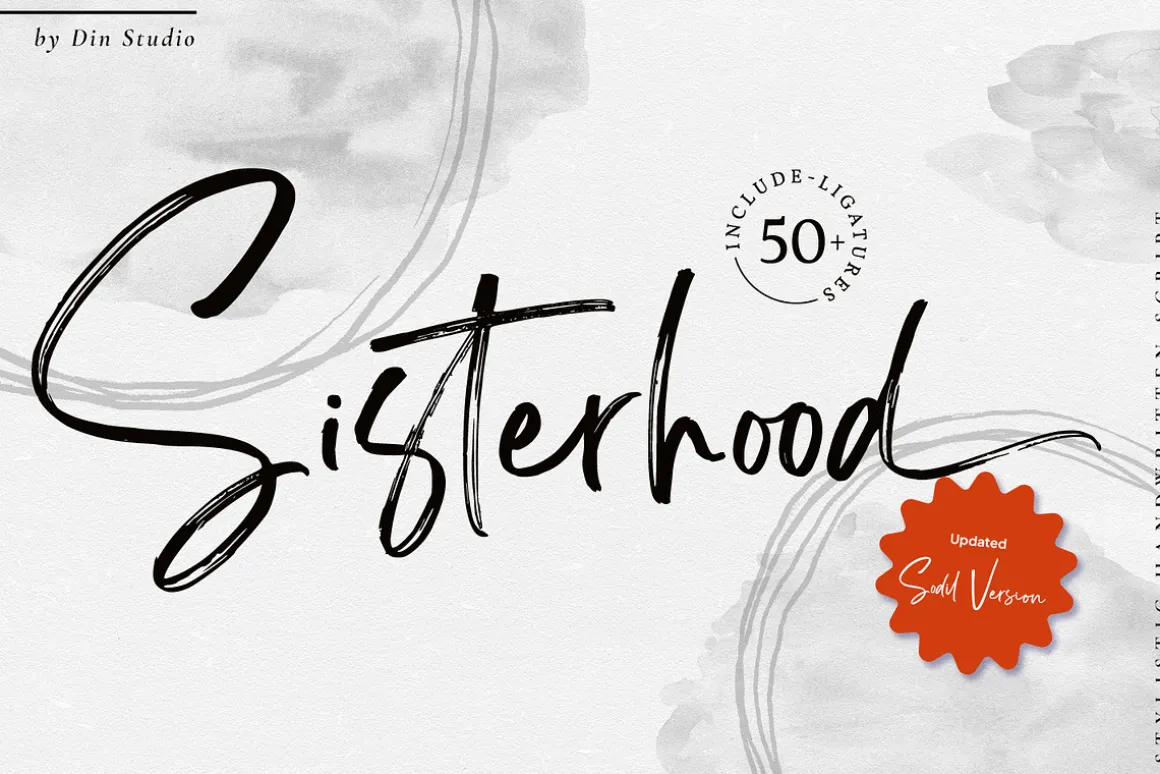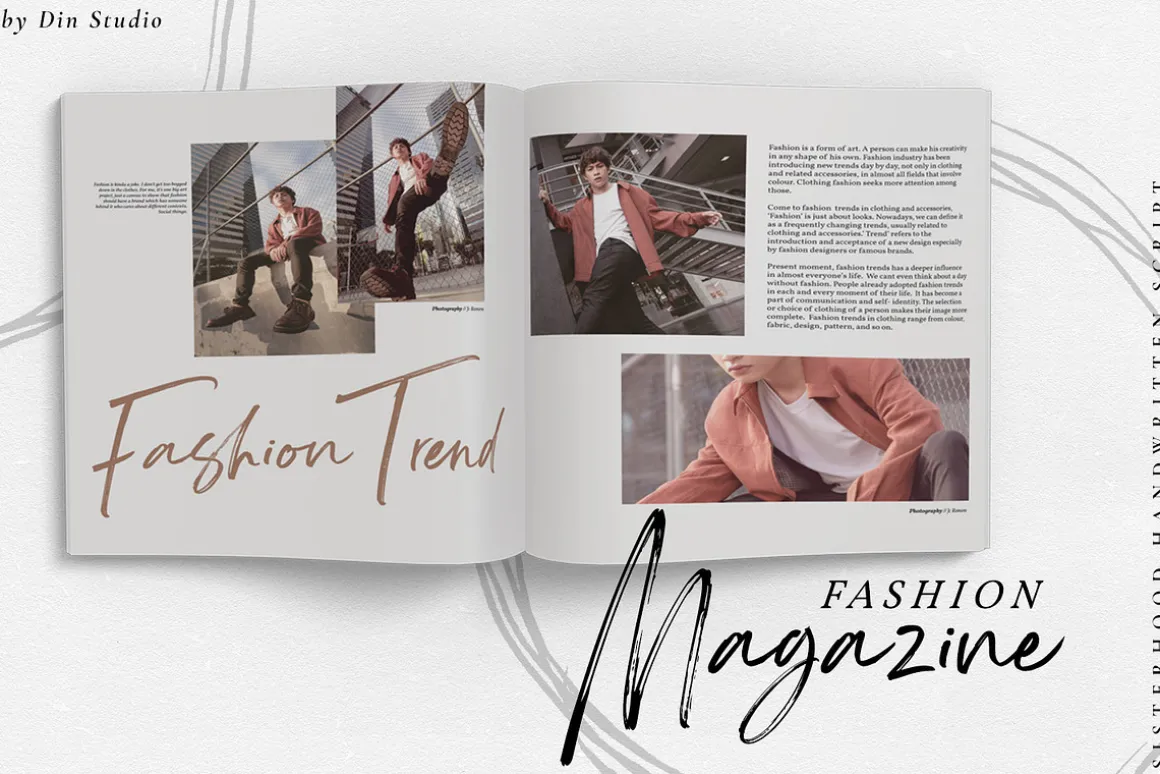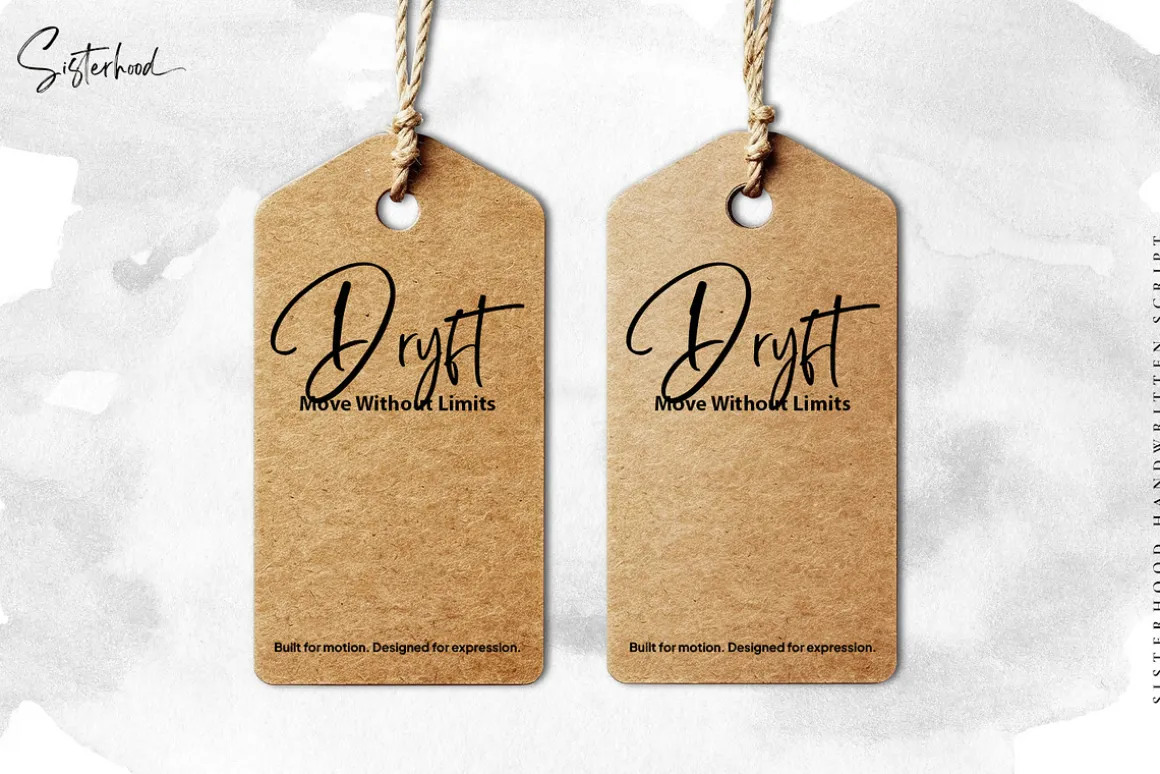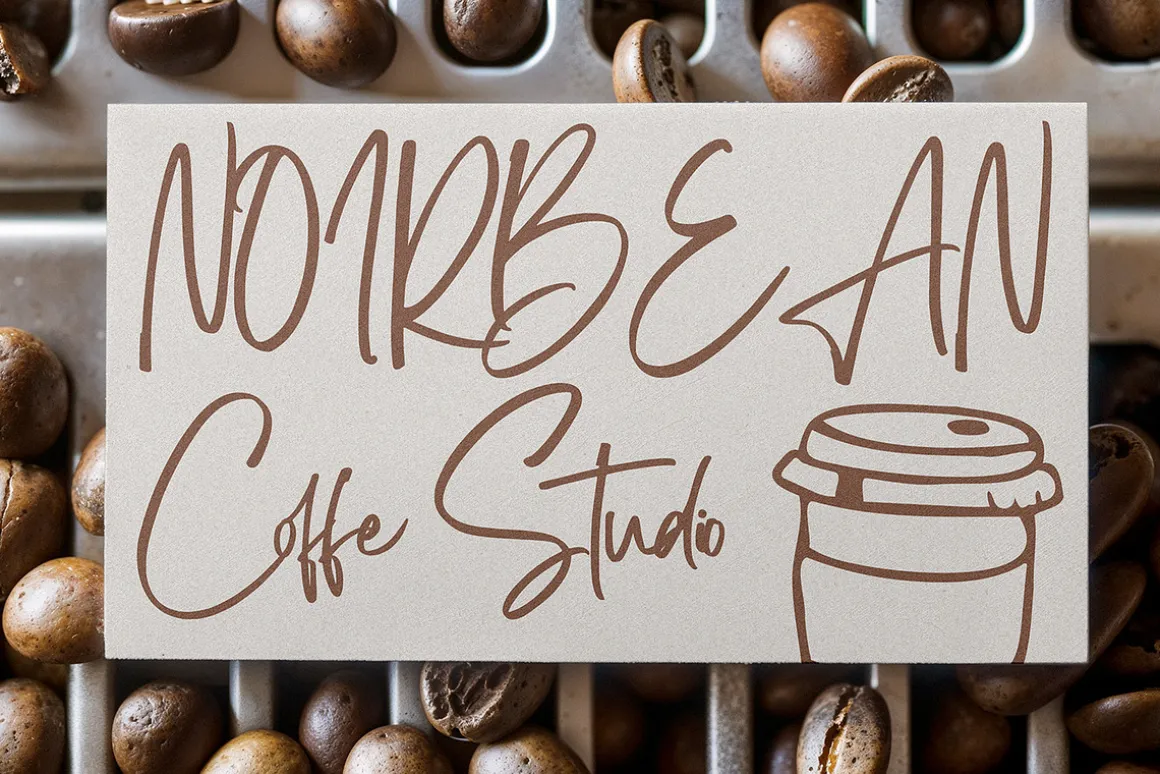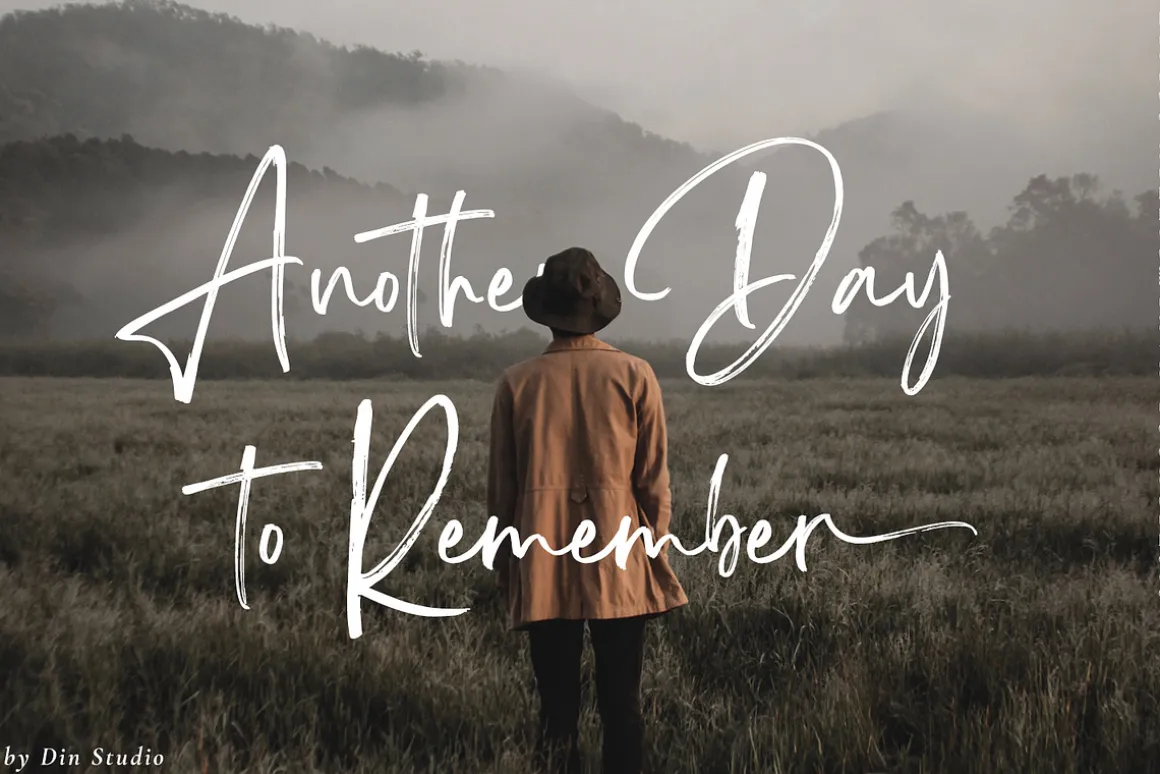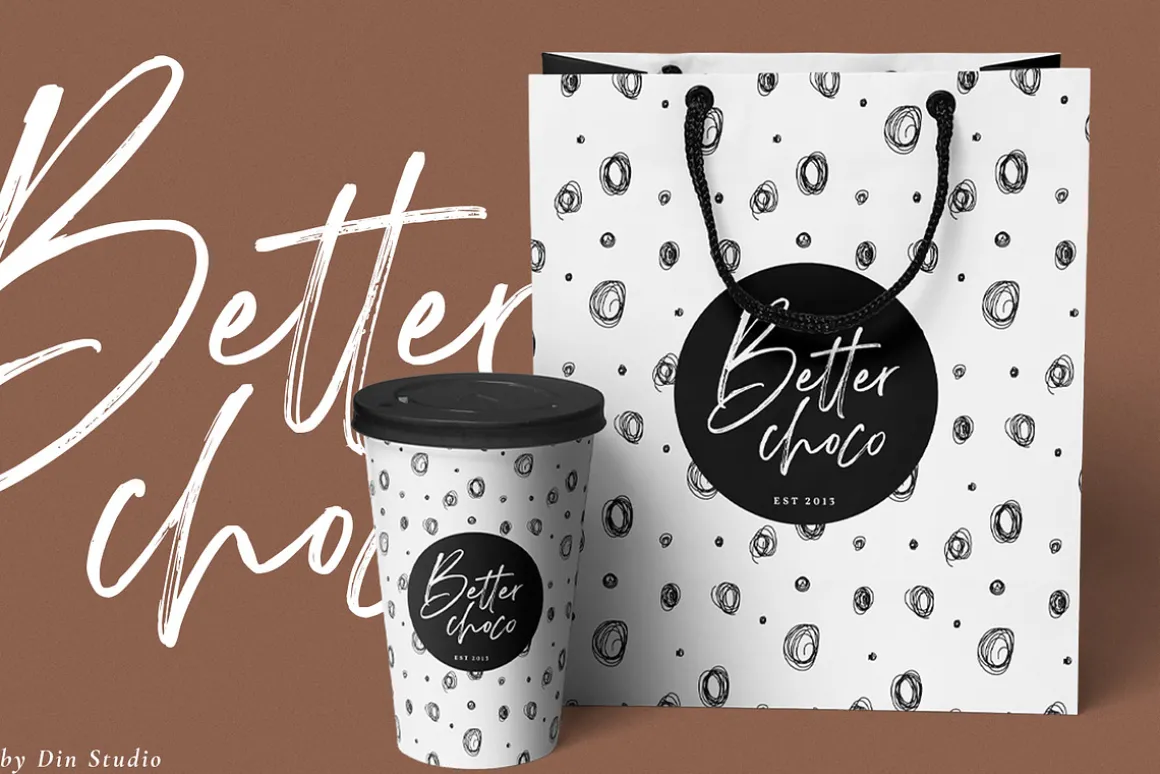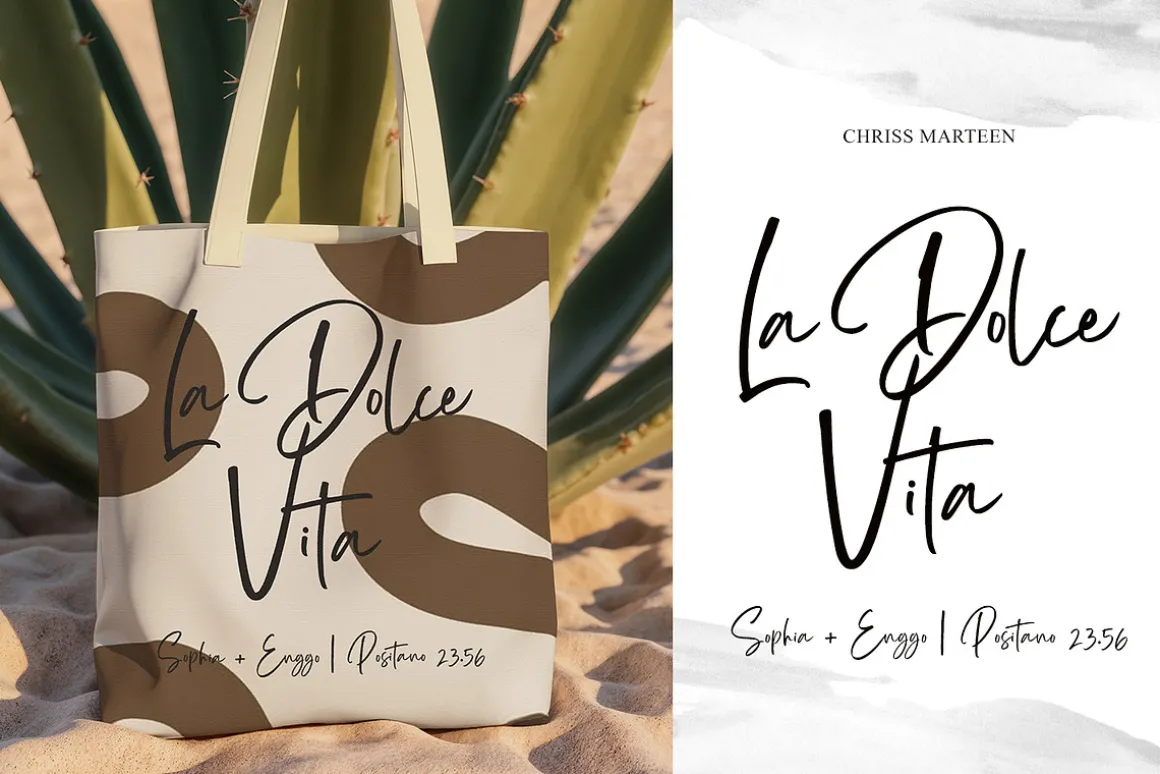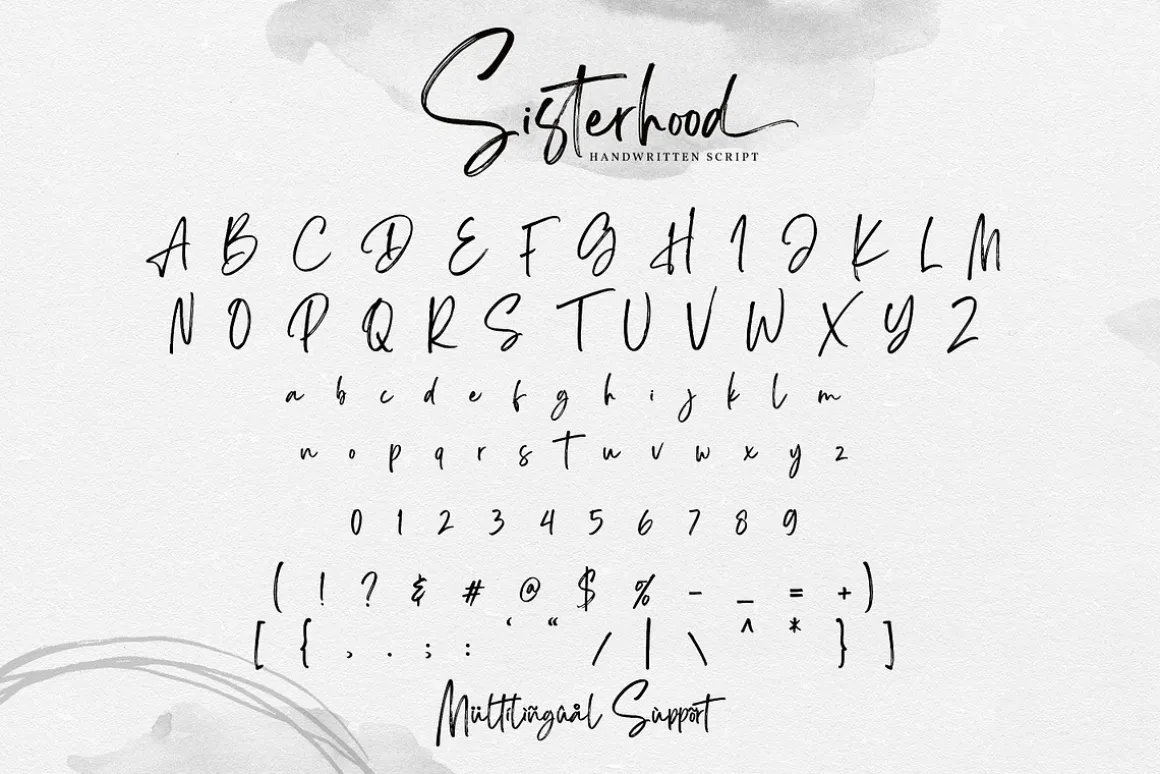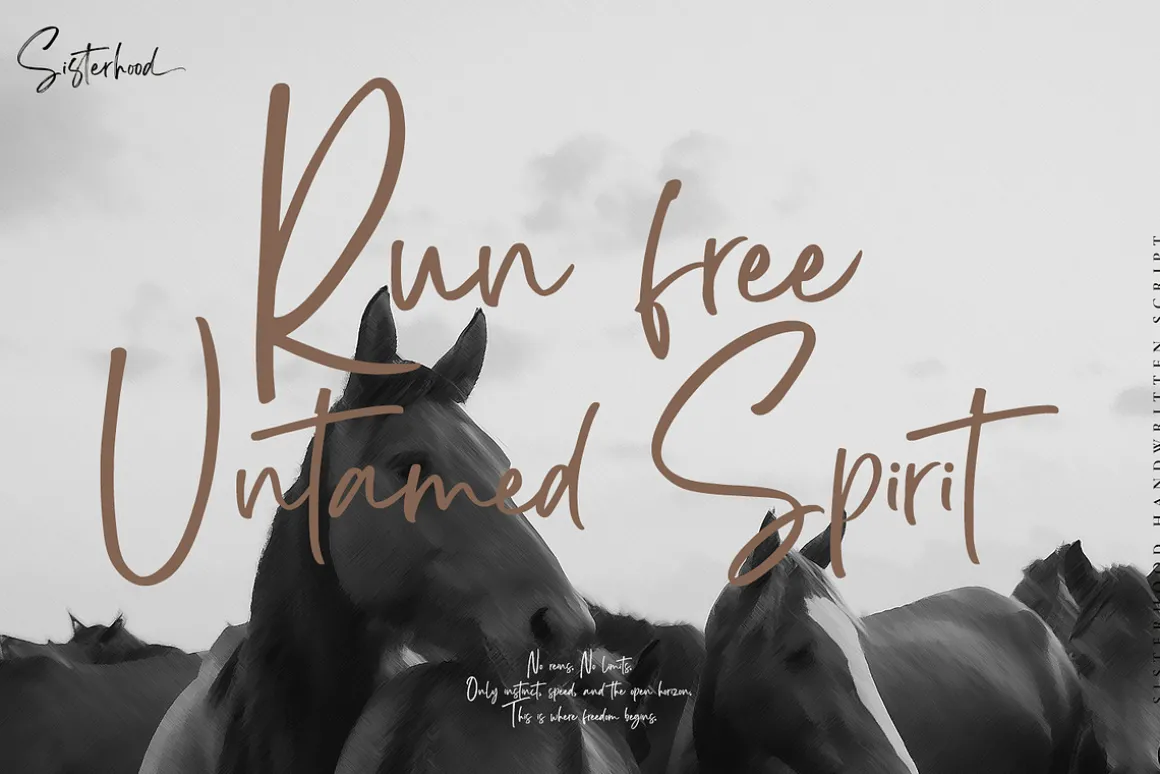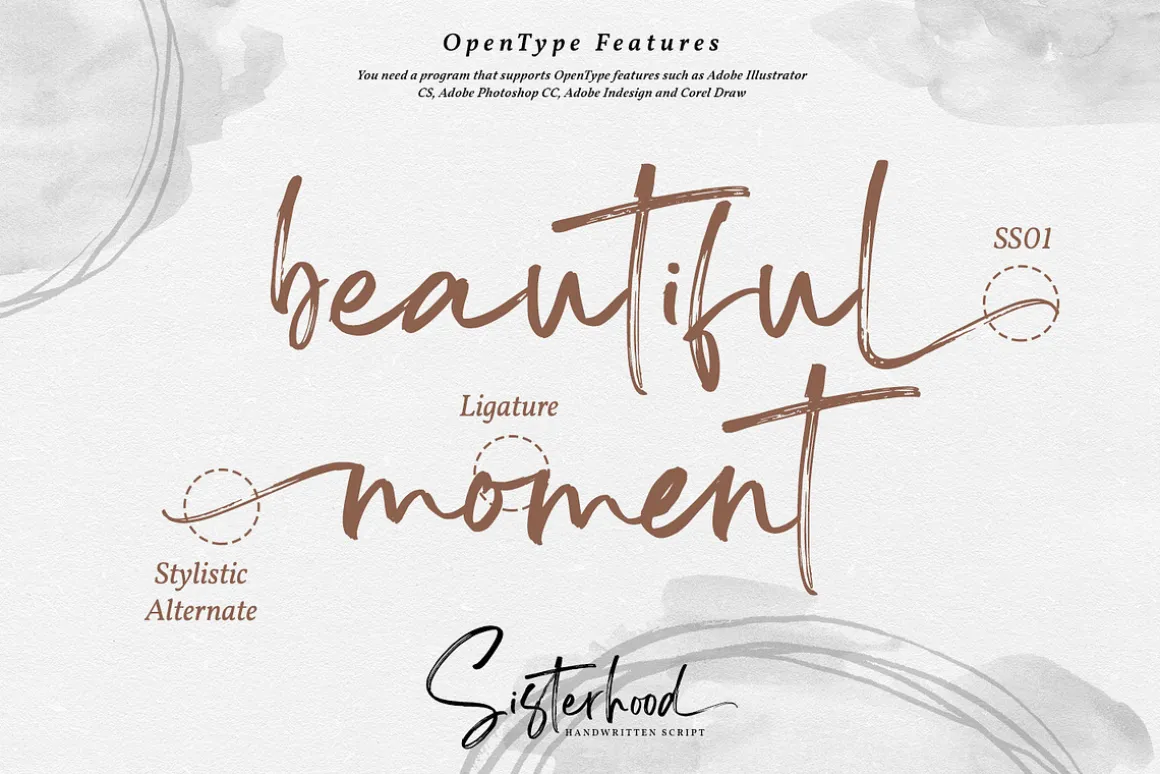
Sisterhood is a beautiful brush signature font. Made for any professional project branding. Every letter has a unique and beautiful touch. Made from our talented font designer.
52 Stylistic set
52 Ligatures
Multilingual Support
Numeral and Punctuations
Sisterhood fits for various designs, such as posters, banners, logos, book covers, headings, printed products, merchandise, social media, and more. Find out more ways to use this font by taking a look at the font preview.